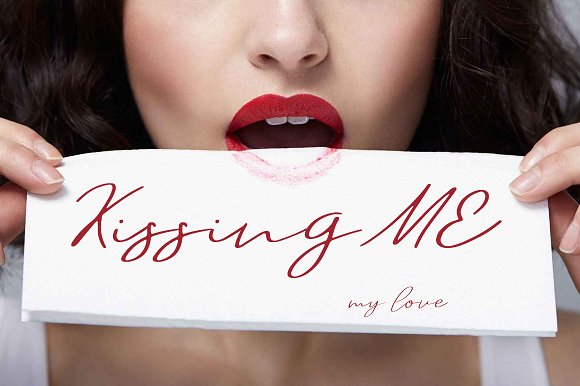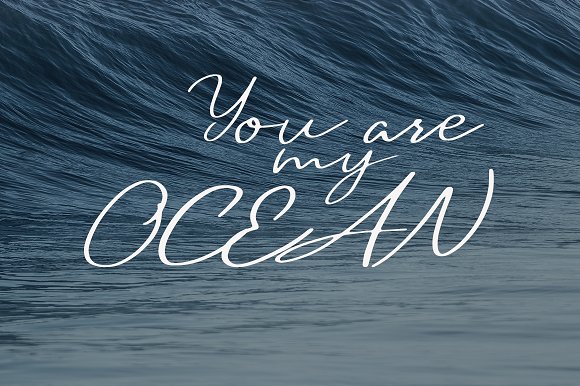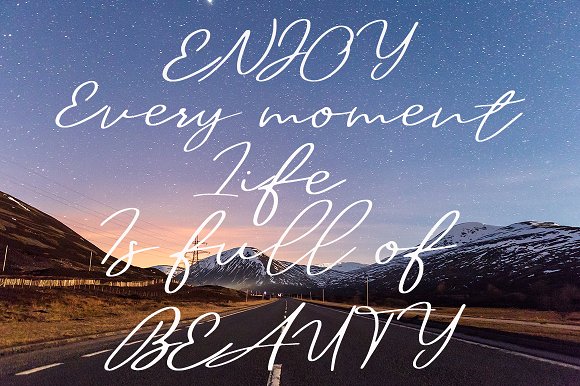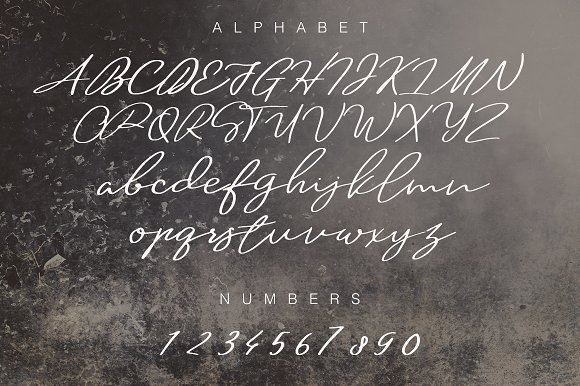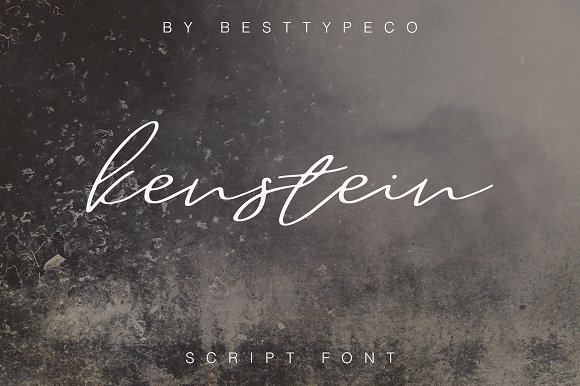
Kenstein Script Font
Kenstein – a new fresh handmade calligraphy font. Very suitable for greeting cards, branding materials, business cards, quotes, posters, and more!
| Classification: | Handwritten Fonts, Script Fonts |